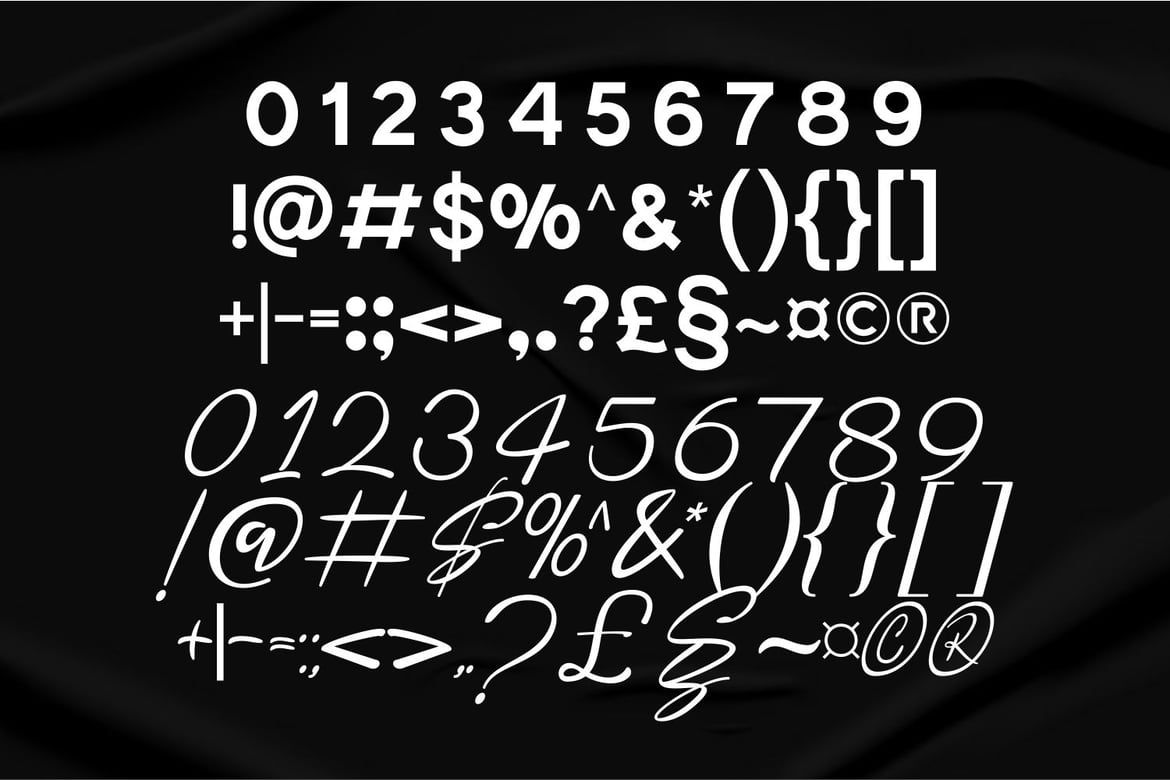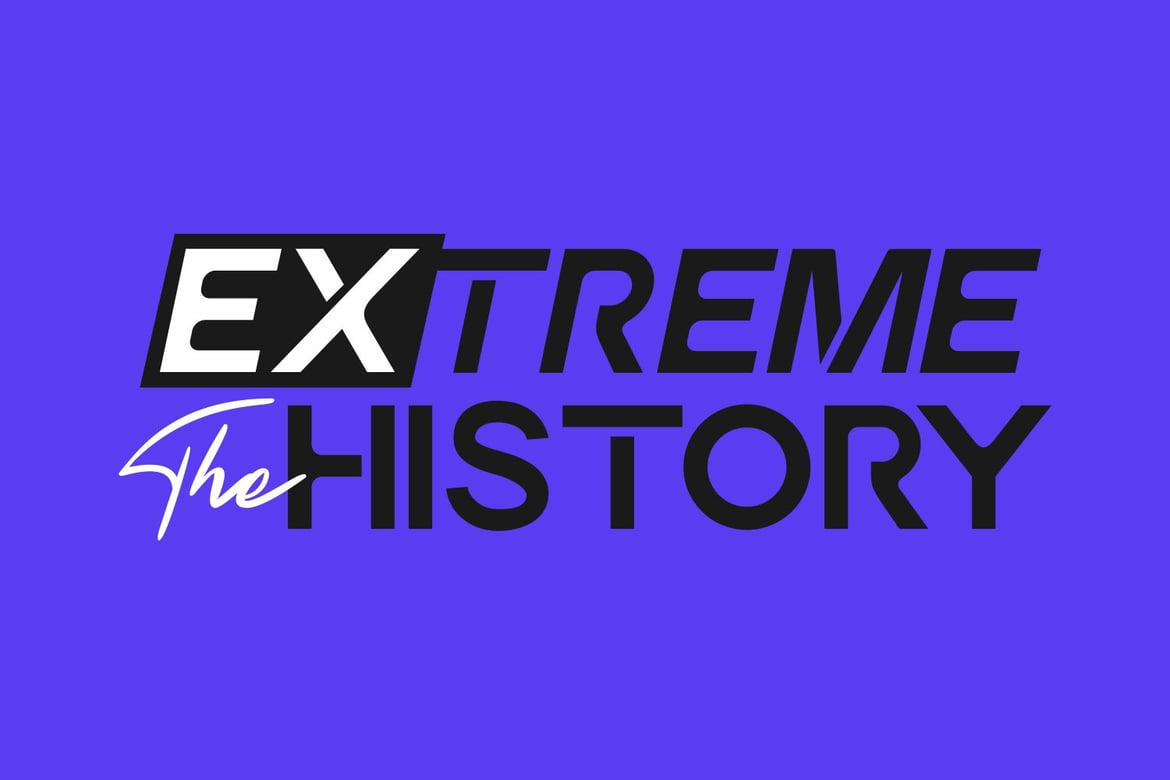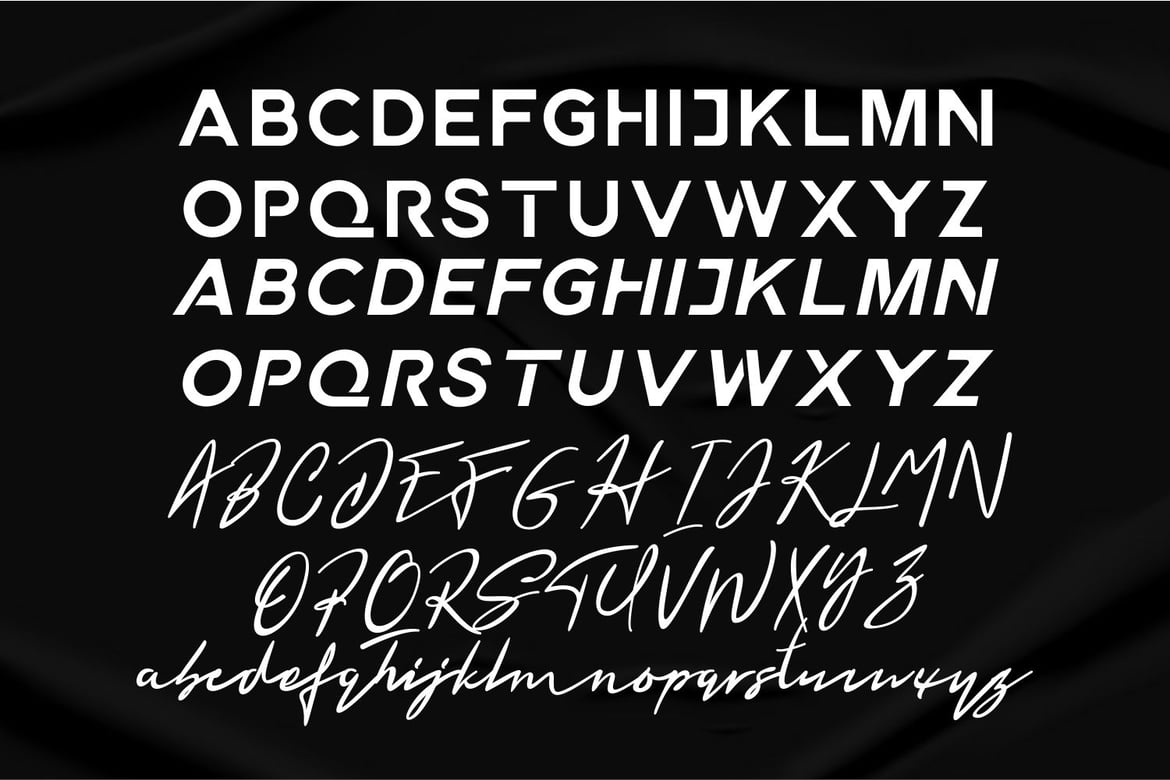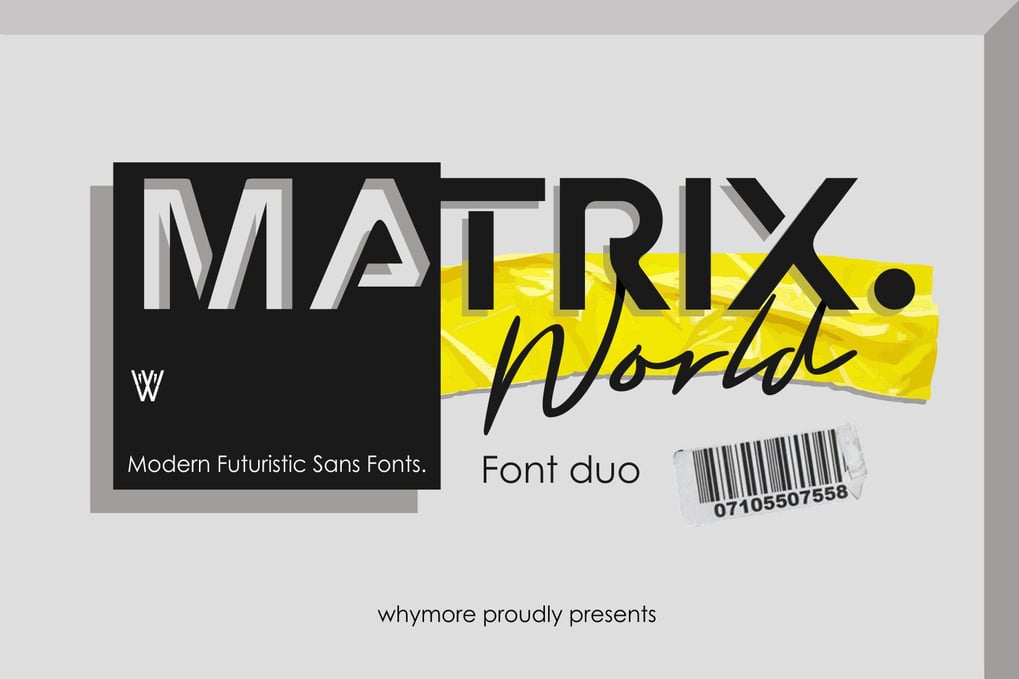
Matrix World Font Duo | Sans & Marker Script Font
Matrix World Font Duo offers a futuristic and captivating style, ideal for designers seeking a standout typeface. Choose Matrix World for a sophisticated, timeless, and visually stunning design experience.